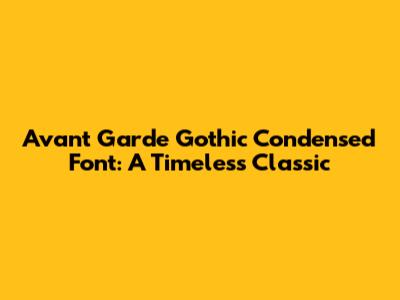
Avant Garde Gothic Condensed Font: A Timeless Classic
Let's dive into the world of fonts, guys! Today, we're gonna be talking about a real classic: Avant Garde Gothic Condensed font. This font has been around for a while, and it's still super popular for a good reason. It's sleek, modern, and just looks damn good. So, what's the deal with this font, and why should you care? Let's break it down, shall we?
A Deep Dive into Avant Garde Gothic Condensed
Avant Garde Gothic Condensed isn't just another font; it's a statement. Born from the iconic Avant Garde Gothic family, this condensed variant brings a unique flavor to the table. Its history is intertwined with the world of graphic design and typography, making it a significant player in visual communication. The font's clean lines and geometric shapes give it a contemporary edge that designers love to use in various projects, from branding to editorial design.
The Origins and History
The story of Avant Garde Gothic begins in the late 1960s with Herb Lubalin and Tom Carnase. These two legends of graphic design were commissioned to create a logo and typeface for the Avant Garde magazine. The result was a groundbreaking typeface characterized by its geometric forms and distinctive letter shapes. Over time, the font family expanded to include various weights and styles, including the condensed version we're focusing on today. This condensed version maintains the essence of the original while offering a narrower width, making it perfect for designs where space is at a premium.
Key Characteristics and Design
What makes Avant Garde Gothic Condensed stand out? Its unique design elements, of course! The font is known for its clean, geometric shapes, short ascenders and descenders, and a uniform stroke weight. The condensed nature of the font means that the letters are narrower than the regular version, allowing you to fit more text into a smaller space. This makes it super useful for headlines, logos, and other design elements where you need to make a big impact without taking up too much room. The minimalist design gives it a timeless appeal, ensuring it remains relevant in an ever-evolving design landscape. Its legibility is also a key factor, ensuring that text remains readable even at smaller sizes.
Why Choose Avant Garde Gothic Condensed?
So, why should you choose Avant Garde Gothic Condensed for your next project?* Well, there are tons of reasons! First off, it's incredibly versatile. You can use it for everything from website headers to print ads, and it always looks polished and professional. Plus, its condensed form factor is great for designs where you need to save space without sacrificing readability. Whether you're designing a sleek, modern website or a sophisticated print brochure, this font can help you achieve the look you're after. Its clean and minimalist aesthetic ensures it pairs well with various design styles, making it a reliable choice for designers.
Applications of Avant Garde Gothic Condensed
Avant Garde Gothic Condensed is like that one tool in your toolbox that you can use for almost anything. Seriously, this font is versatile! Let’s look at some specific areas where it shines. From branding to editorial layouts, this font has proven its worth in a multitude of design scenarios.
Branding and Logo Design
When it comes to creating a brand identity, Avant Garde Gothic Condensed can be a real game-changer. Its clean and modern look is perfect for companies that want to project an image of sophistication and innovation. Many brands have used this font in their logos to convey a sense of sleekness and professionalism. Think about tech companies, design agencies, and high-end retailers – they all benefit from the font's ability to communicate clarity and confidence. The condensed form allows for creative arrangements and tighter compositions, making logos more memorable and impactful.
Web Design and Digital Interfaces
In the digital realm, Avant Garde Gothic Condensed is a star. Its legibility and clean lines make it an excellent choice for website headers, navigation menus, and other user interface elements. The font's modern aesthetic ensures that your website looks up-to-date and professional. Plus, its condensed nature allows you to fit more text on the screen without sacrificing readability, which is especially important for mobile devices. Using this font can significantly enhance the user experience, making your site more engaging and user-friendly. Its adaptability to various screen sizes and resolutions makes it a go-to choice for web designers aiming for a seamless digital presence.
Print and Editorial Design
Don't think that Avant Garde Gothic Condensed is only for digital stuff! It's also a fantastic choice for print projects. Its condensed form factor is perfect for headlines, captions, and other text elements where space is limited. Whether you're designing a magazine, a brochure, or a poster, this font can help you create a visually appealing and easy-to-read layout. Its ability to maintain clarity even in tight spaces makes it a reliable choice for editorial designers. The font's sophisticated look adds a touch of elegance to any print project, ensuring it stands out from the crowd.
Pairing Avant Garde Gothic Condensed with Other Fonts
Okay, so you're sold on Avant Garde Gothic Condensed, but what fonts should you pair it with?* Great question! Choosing the right font pairings can make or break your design. You want to create a harmonious balance that enhances the overall look and feel. Here are a few suggestions to get you started.
Complementary Font Choices
To achieve a balanced and visually appealing design, consider pairing Avant Garde Gothic Condensed with fonts that offer a contrast in style but still maintain a sense of harmony. For body text, a classic serif font like Times New Roman or Georgia can provide a sophisticated contrast. Alternatively, a clean sans-serif font like Open Sans or Lato can create a modern and minimalist look. The key is to choose fonts that complement the clean lines of Avant Garde Gothic Condensed without overshadowing it. Experimenting with different pairings can lead to unique and eye-catching designs.
Creating Visual Hierarchy
Font pairings are also essential for creating a clear visual hierarchy in your designs. Use Avant Garde Gothic Condensed for headlines and subheadings to draw attention and establish a clear structure. Pair it with a more readable font for body text to ensure that your content is easy to digest. Varying font sizes and weights can further enhance the hierarchy, guiding the reader through the design in a logical and intuitive manner. This approach ensures that your message is communicated effectively and that your design remains visually engaging.
Examples of Successful Pairings
Need some inspiration? Here are a few examples of successful font pairings with Avant Garde Gothic Condensed:
• Avant Garde Gothic Condensed (Headings) + Open Sans (Body Text): A modern and clean combination that works well for websites and digital interfaces.
• Avant Garde Gothic Condensed (Headings) + Times New Roman (Body Text): A classic pairing that adds a touch of sophistication to print and editorial designs.
• Avant Garde Gothic Condensed (Headings) + Montserrat (Body Text): A contemporary combination that creates a bold and impactful visual statement.
These are just a few examples, of course. Feel free to experiment with different font pairings to find what works best for your project. The goal is to create a cohesive and visually appealing design that effectively communicates your message.
Tips and Best Practices for Using Avant Garde Gothic Condensed
Alright, you're ready to start using Avant Garde Gothic Condensed, but before you do, let's go over some tips and best practices. These guidelines will help you make the most of this versatile font and avoid common pitfalls. From ensuring readability to maintaining consistency, these tips will elevate your designs.
Ensuring Readability
While Avant Garde Gothic Condensed is a stylish font, readability should always be a top priority. Avoid using it for large blocks of body text, as its condensed nature can make it challenging to read for extended periods. Instead, use it for headings, subheadings, and other short text elements where its impact can be maximized without sacrificing readability. Pay attention to letter spacing and line height to ensure that the text remains legible. Proper kerning can also improve the overall readability and visual appeal of the font.
Maintaining Consistency
Consistency is key in design, and fonts are no exception. When using Avant Garde Gothic Condensed, be sure to maintain a consistent style throughout your project. Use the same font weights, sizes, and styles for similar elements to create a cohesive and professional look. Avoid mixing too many different fonts, as this can create a cluttered and confusing design. A well-defined typography system can help you maintain consistency and ensure that your design remains visually harmonious.
Avoiding Common Pitfalls
Like any font, there are some common pitfalls to avoid when using Avant Garde Gothic Condensed. One common mistake is using it in overly small sizes, which can make it difficult to read. Another is using it in all caps for extended periods, as this can also reduce readability. Be mindful of the context in which you're using the font and make adjustments as needed to ensure that it remains effective and visually appealing. Overusing the font can also diminish its impact, so use it strategically to highlight key elements in your design.
Conclusion: The Enduring Appeal of Avant Garde Gothic Condensed
So there you have it, guys! Avant Garde Gothic Condensed is a killer font that's stood the test of time. Its clean lines, geometric shapes, and versatile nature make it a favorite among designers of all kinds. Whether you're working on a website, a logo, or a print project, this font can help you create a visually appealing and professional design. So go ahead and give it a try – you might just find your new favorite font!
From its historical roots to its modern-day applications, Avant Garde Gothic Condensed has proven to be a timeless classic. Its ability to adapt to various design styles and mediums makes it a valuable asset in any designer's toolkit. By following the tips and best practices outlined in this article, you can harness the full potential of this font and create stunning designs that stand the test of time. So, embrace the enduring appeal of Avant Garde Gothic Condensed and let it elevate your next creative project.